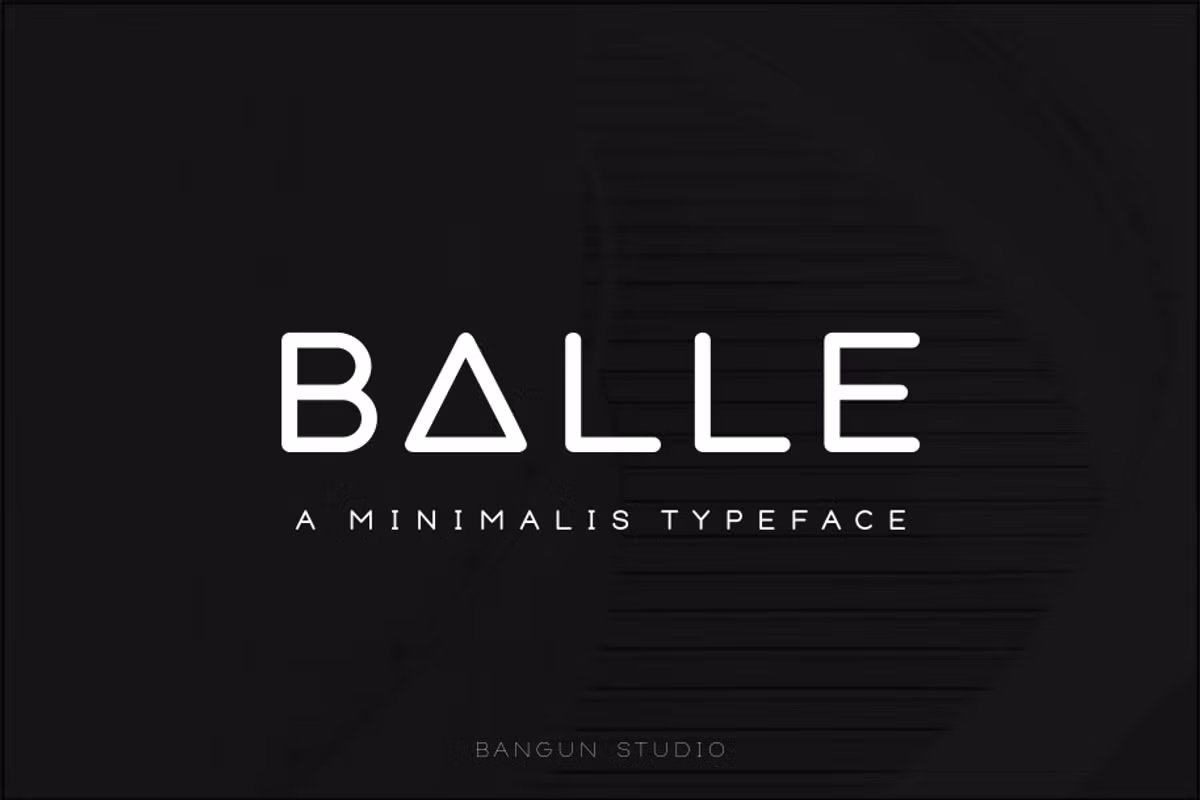
BALLE (Rounded Font) Free Download is a modern and playful sans-serif font that features rounded edges for a smooth and friendly appearance. Its soft, clean lines make it perfect for branding, logos, social media graphics, children's products, and any project that calls for a casual, approachable look.
BALLE offers a contemporary feel while maintaining a sense of warmth and legibility, making it ideal for both digital and print applications. Whether you’re designing for a tech startup, a creative agency, or a fun event, this font adds a modern yet welcoming vibe to your typography.